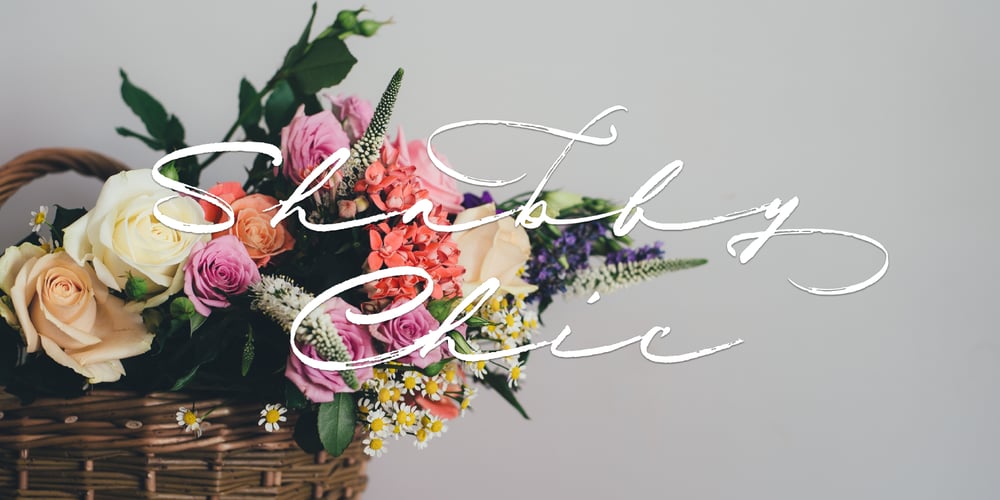
Shabby Chic Font Family was designed by Giuseppe Salerno, Paco González and published by Resistenza. Shabby Chic contains 1 styles and family package options. Shabby Chic Font: Embracing Rustic RomanceThe Shabby Chic aesthetic is a celebration of imperfection, a nod to the beauty found in the worn, the weathered, and the well-loved. Its hallmark lies in the softening of edges, which serves as a testament to age, warmth, authenticity, and use. This charming style, beloved by Bohemians and artisans alike, exudes a soft, relaxed, and romantic feeling, inviting us to embrace the simple pleasures of life.Resistenza embarked on a journey to capture the essence and charm of Shabby Chic in a typeface. Drawing inspiration from their monoline script, Mina, they set out to infuse the spirit of Shabby Chic into every stroke and curve. The result is a font drawn by hand with a dry brush pen, exuding rustic warmth and boasting distressed edges that tell stories of time and texture.Shabby Chic font breathes life into words, with long connections between letters creating a visual rhythm reminiscent of gentle waves lapping at a seashore. Each character bears an expressive touch, offering OpenType enabled alternates that allow for seamless customization and flair. Whether it’s character combinations, initial and final forms, or ligatures, Shabby Chic font provides effortless versatility, lending a realistic handwritten-sign appearance to any project.Unlocking the full potential of Shabby Chic font is a breeze with its accessible alternates. Simply toggle the ‘Stylistic Alternates’ and ‘Ligatures’ buttons in your favorite design software, be it Photoshop, Adobe Illustrator, Quark, or any application equipped with a glyphs panel. This font introduces a rustic romance to your font library, inviting you to infuse your creations with an intimate, friendly, warm, and genuine sentiment.From cards and invitations to labels and logos, Shabby Chic font finds its perfect canvas wherever heartfelt communication is key. Whether you’re evoking nostalgia, celebrating simplicity, or channeling the cozy allure of a countryside cottage, Shabby Chic font serves as the perfect companion, weaving tales of rustic charm and enduring beauty with every stroke.More About Opentype Features: https://bit.ly/opentype-rsz